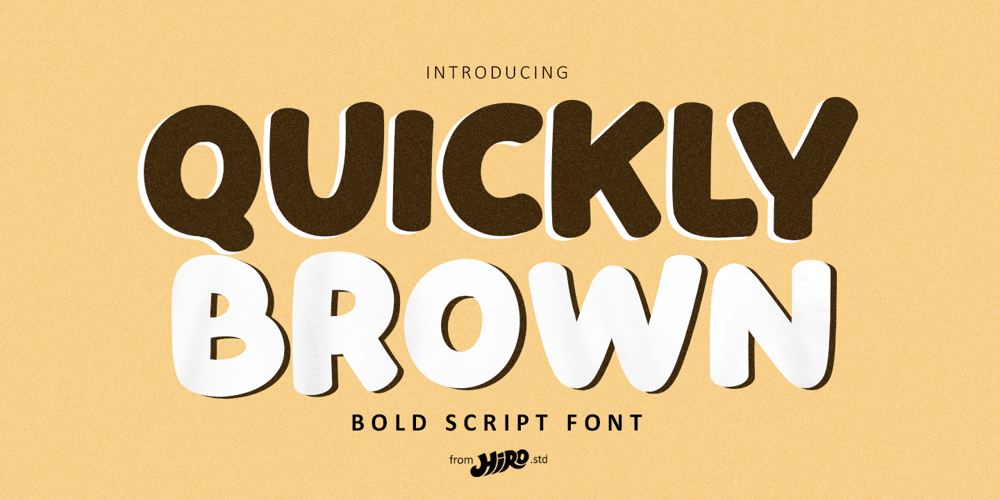
Quickly Brown
Quickly Brown font
Quickly Brown Font Family was designed by Chairul Ashar and published by HIRO.std. Quickly Brown contains 1 styles and family package options. Quickly Brown Bold Script FontThis font describes about fun, bold, chubby, wide and easy to use. Quickly Brown inspired from Doodle and Junk Food.FEATURES- All Capital Bold- Numbering and Punctuations- PUA Encoded Characters- Multilingual Support- Works on PC or MacUSEQuickly Brown works great in any craft, logotype, magazine, quotes, social media and any projects that need all about Bold taste.Enjoy using!Thanks.HIRO.std